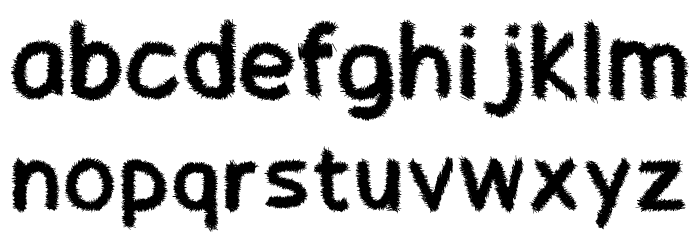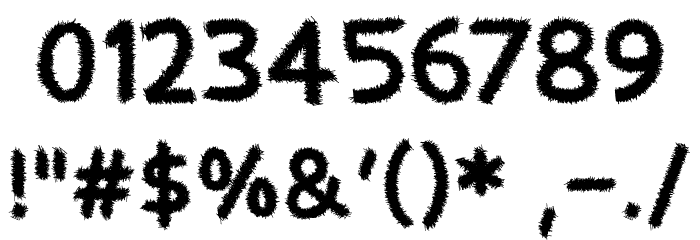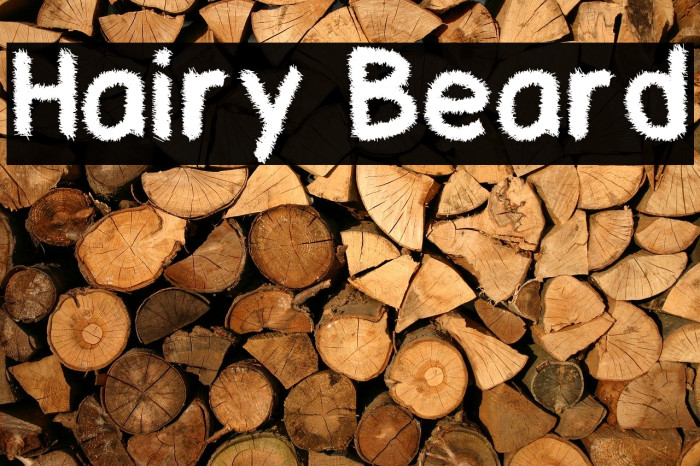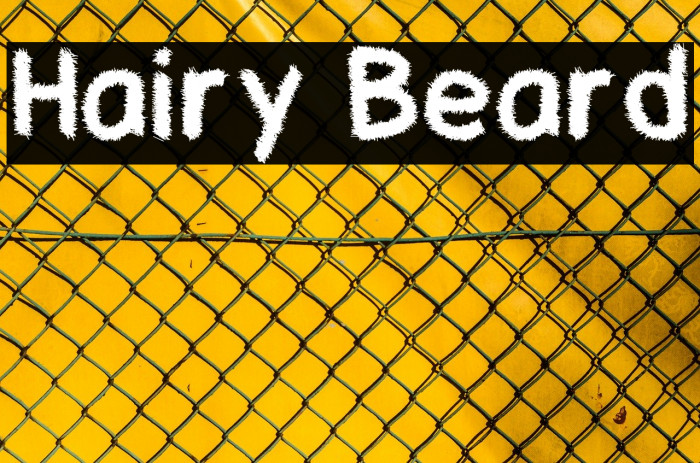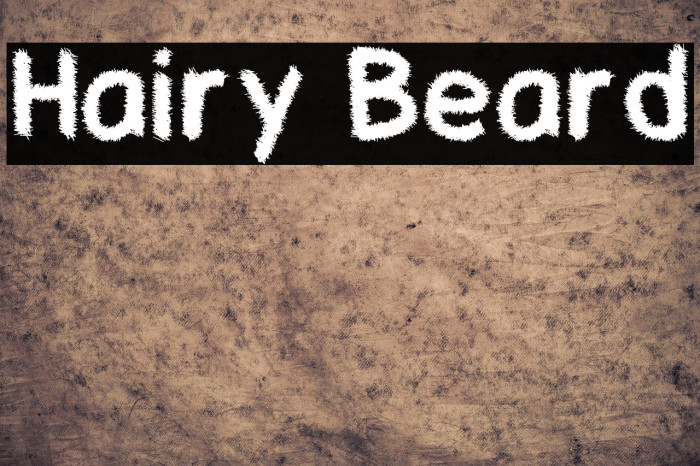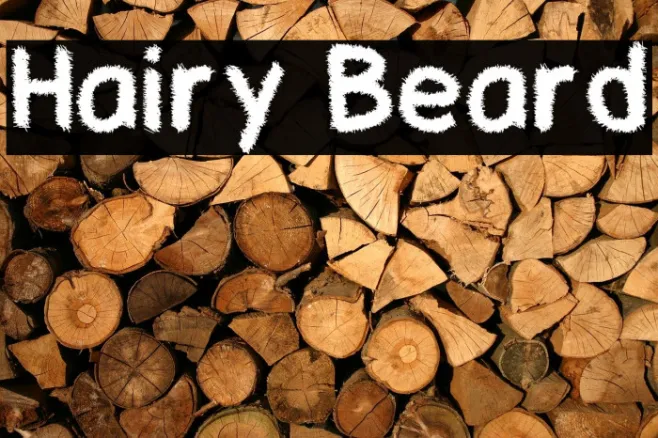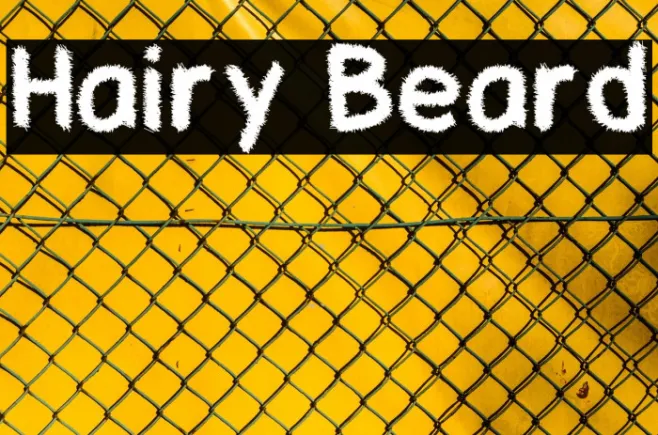
Hairy Beard Font
This font features a unique and playful design with a textured, hairy appearance that gives it a distinctive and eye-catching look. The characters are bold and have a consistent thickness throughout, creating a uniform and cohesive style. The edges of each letter are irregular and fuzzy, resembling strands of hair, which adds a whimsical and fun element to the overall design. This font is perfect for projects that require a touch of humor or creativity, making it ideal for children's books, playful branding, or any design that aims to stand out with a quirky and unconventional style.
A bold, textured font with a playful, hairy appearance.
- Proposed Projects: Ideal for children's books, playful branding, creative posters, and unique logo designs.